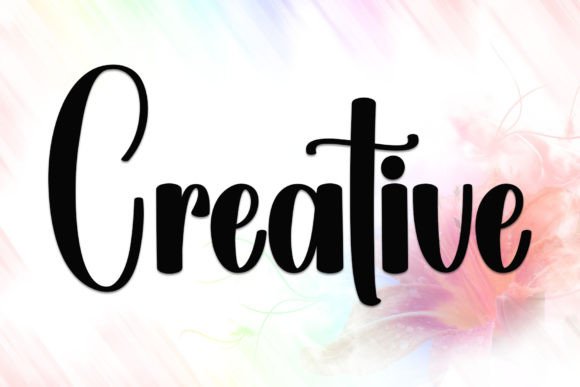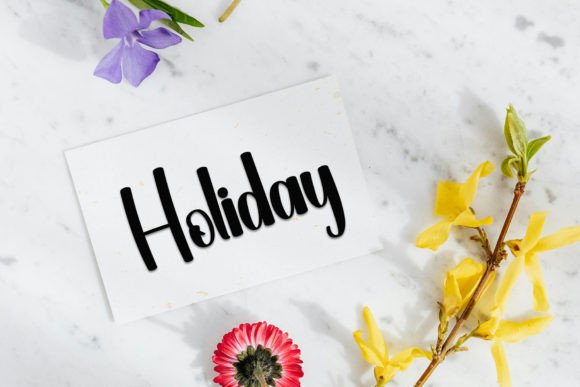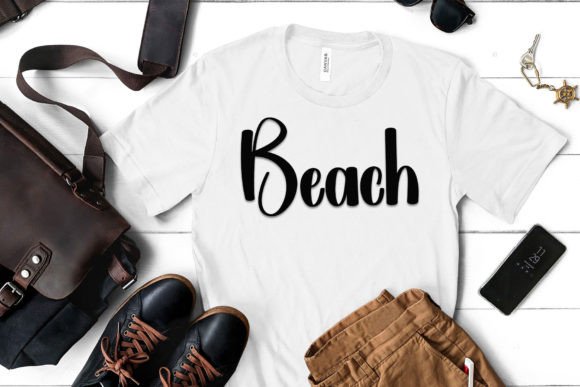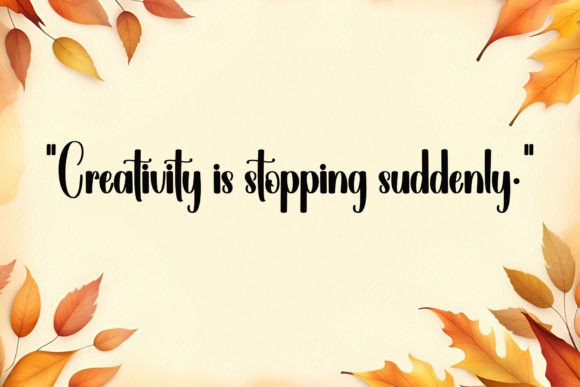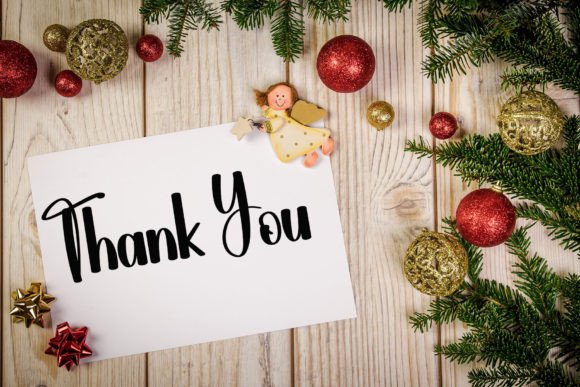
Introduction to Gothic Font
Gothic is a thin lettered and simple script font.
Fall for its ravishing style and use it to create gorgeous wedding invitations, beautiful stationary art, eye-catching social media posts, and much more .
Key Features of Gothic Font